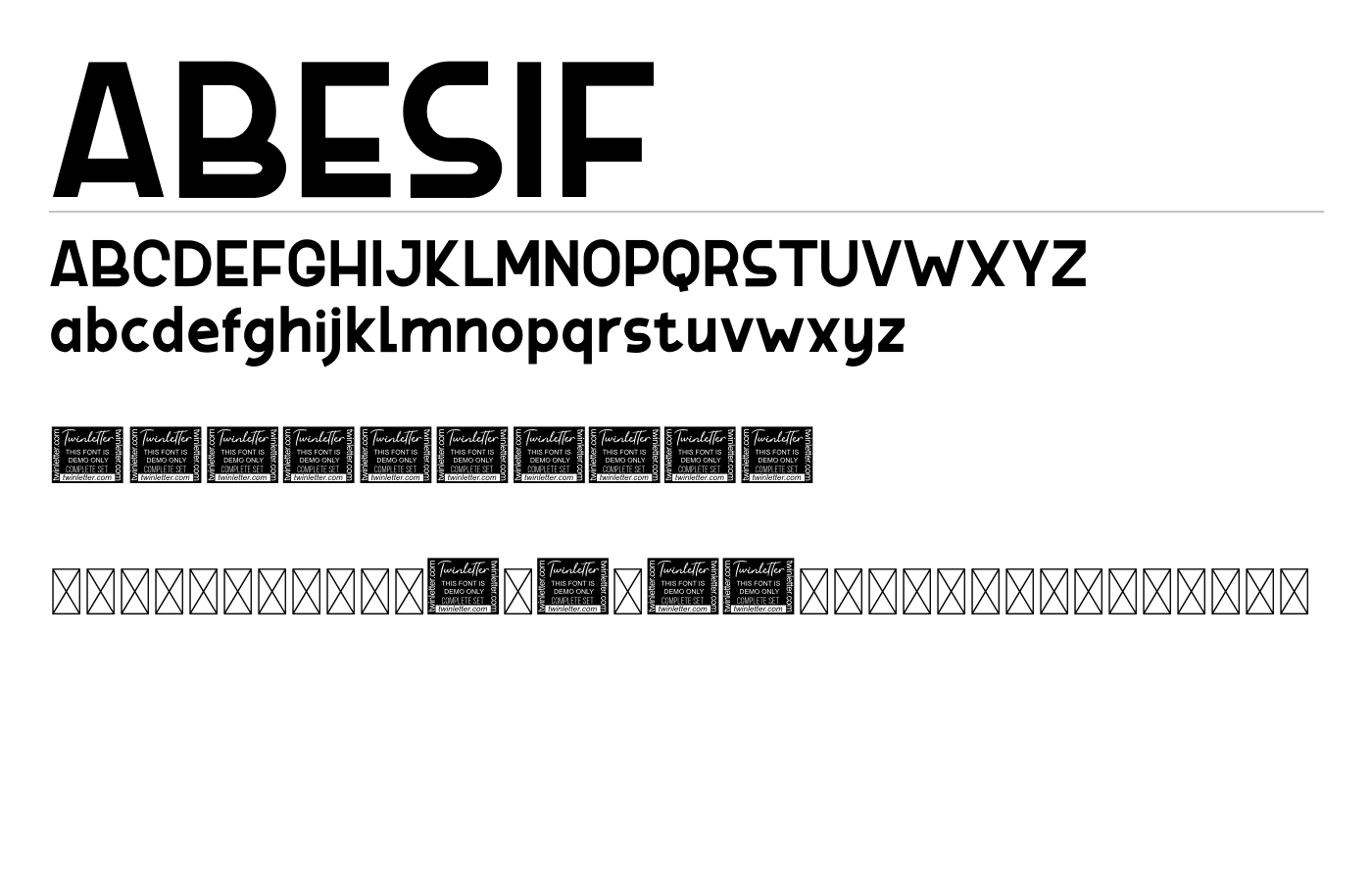
ABESIF is a bold, geometric sans serif font with a modern and slightly futuristic feel. Its strong, clean lines and uniform stroke widths give it a solid, confident presence, making it ideal for headlines, branding, and designs that need a contemporary, no-nonsense style. This font works best for logos, posters, and websites where clear, impactful display text is required.
ABESIF Font
About ABESIF Font